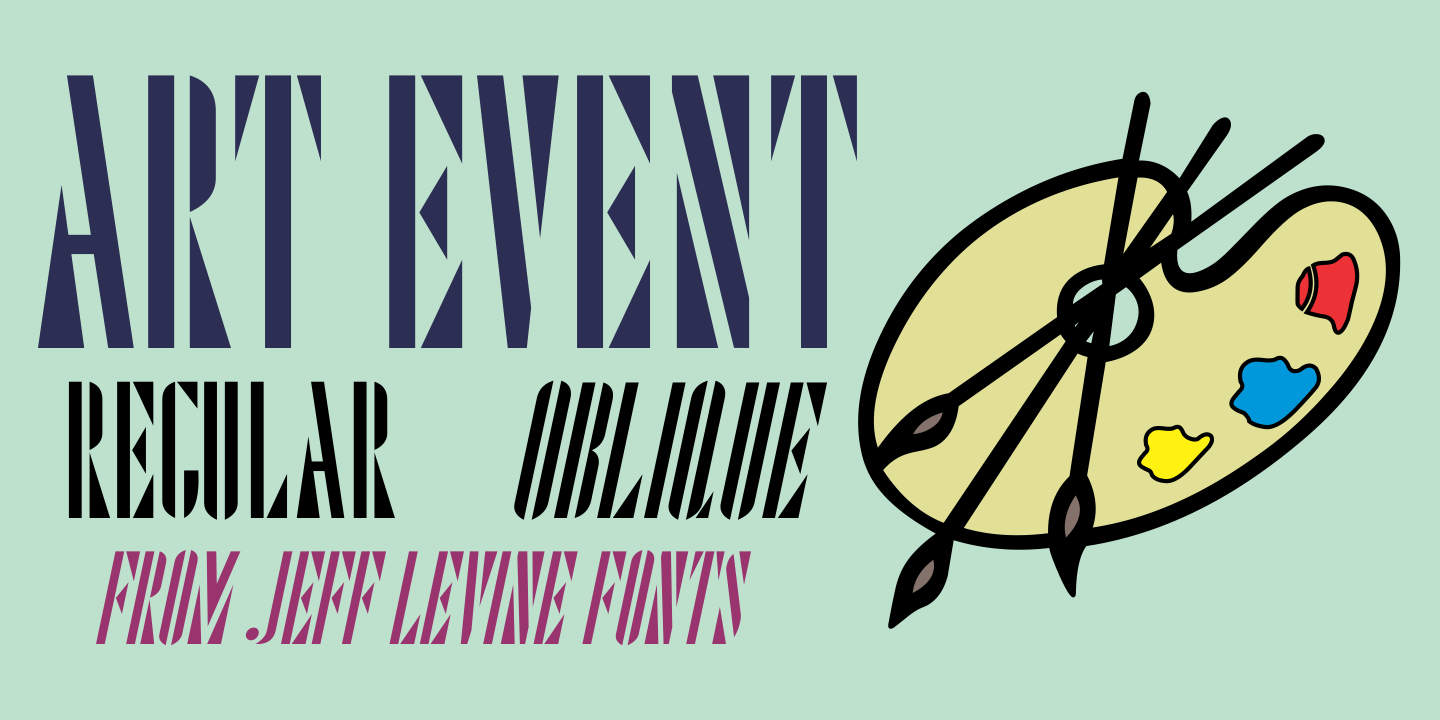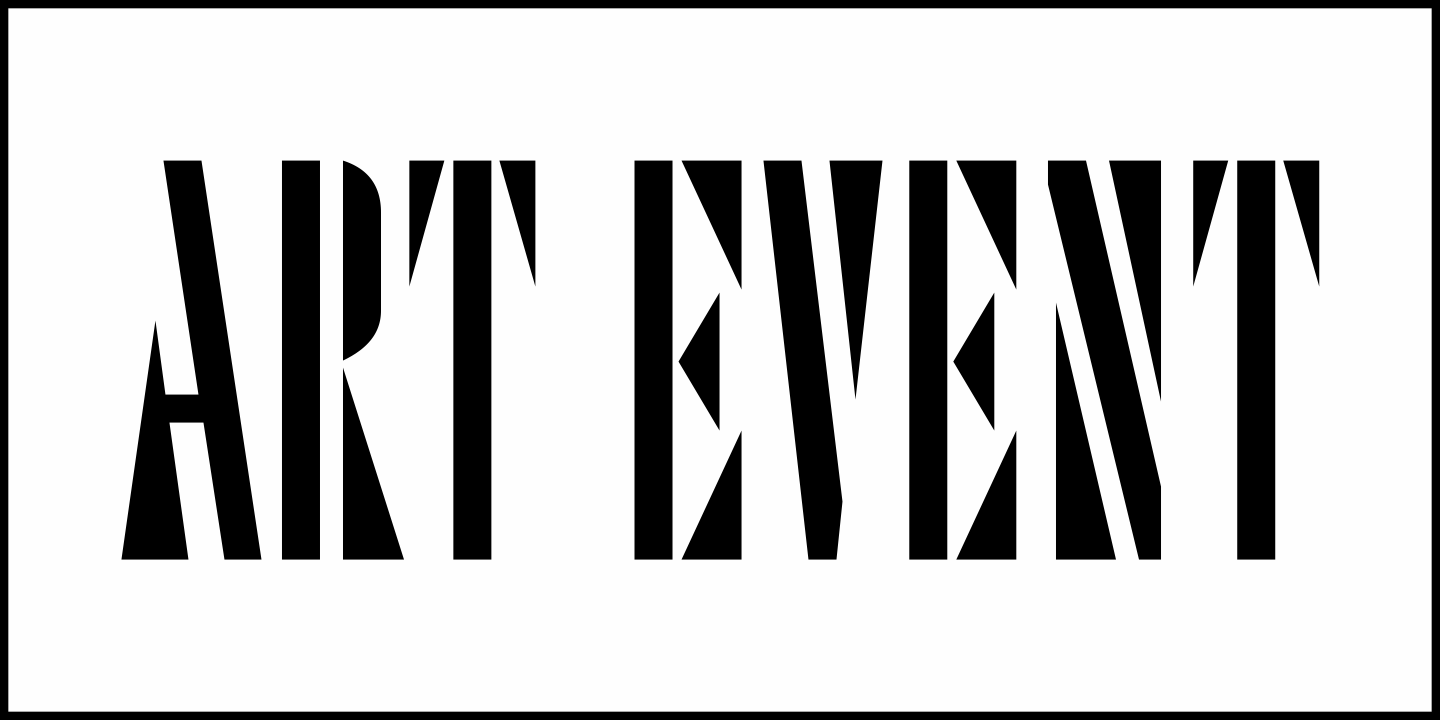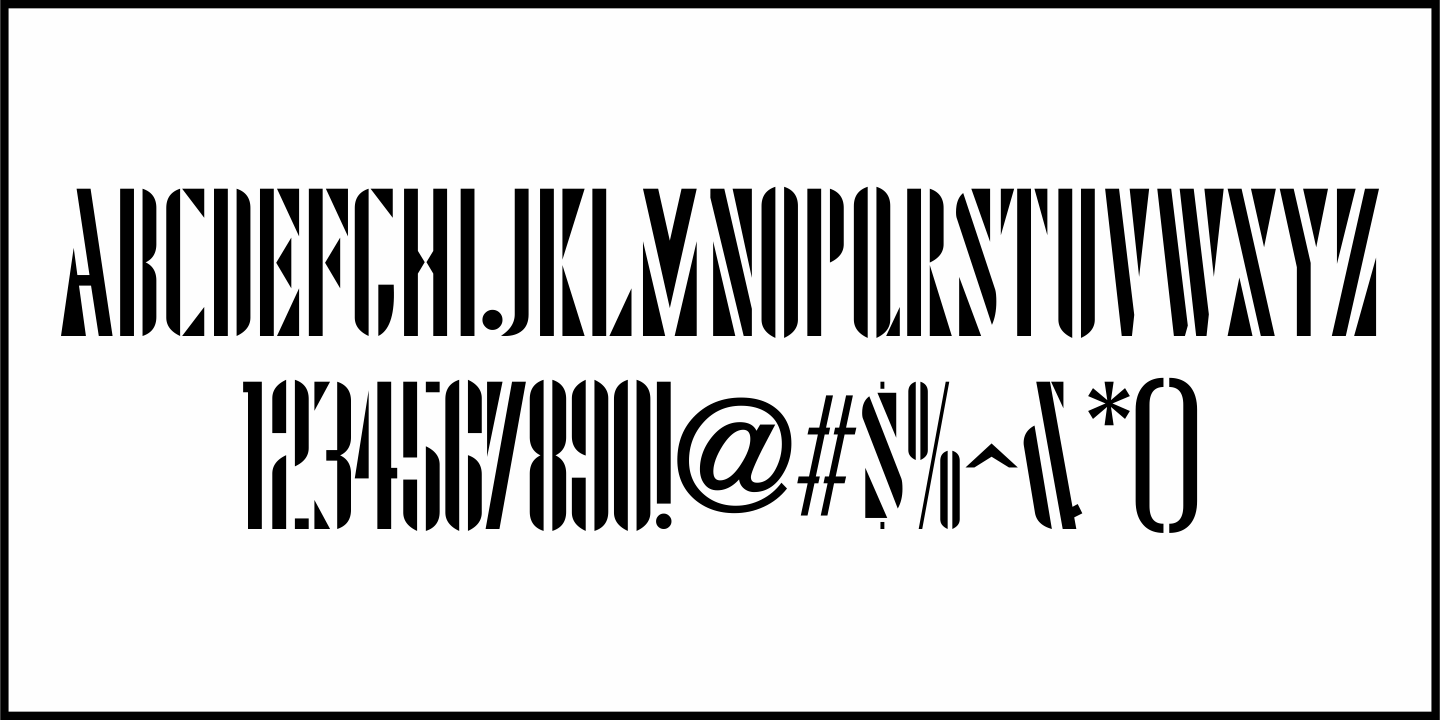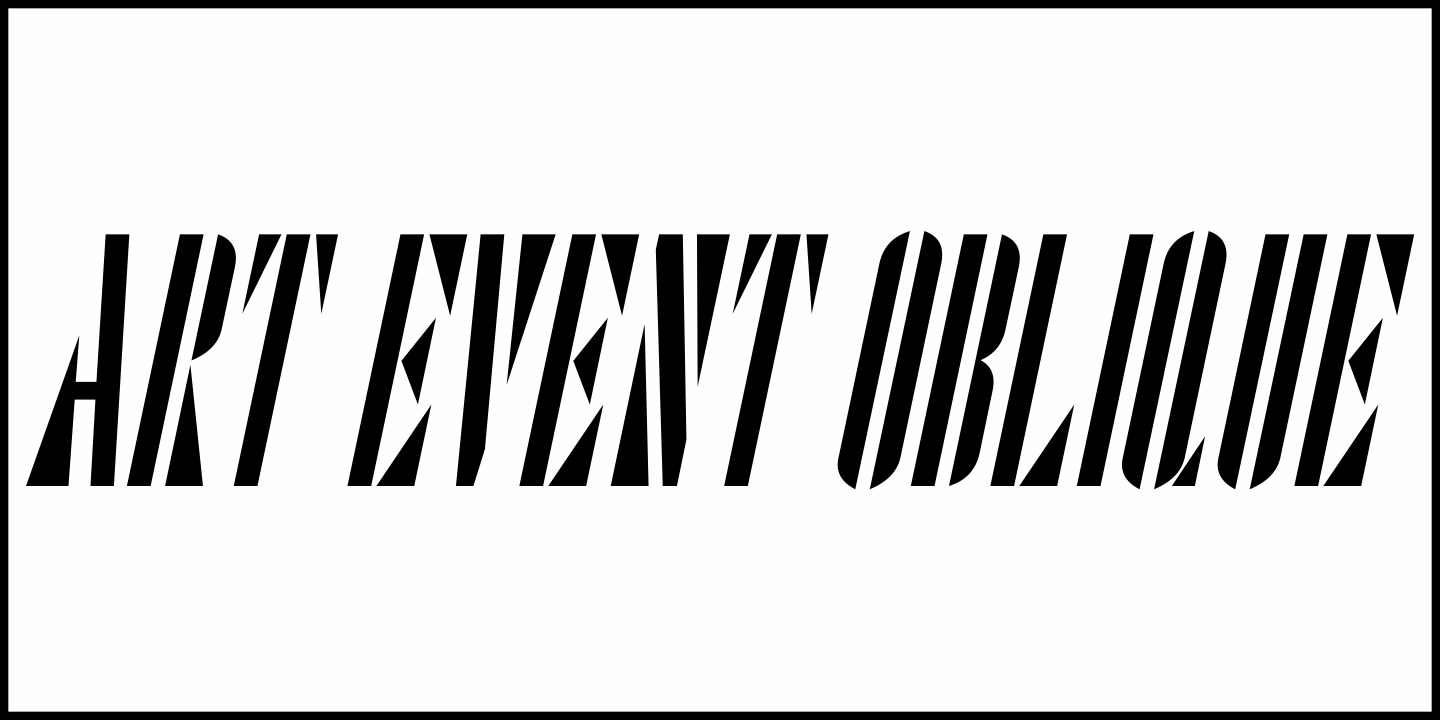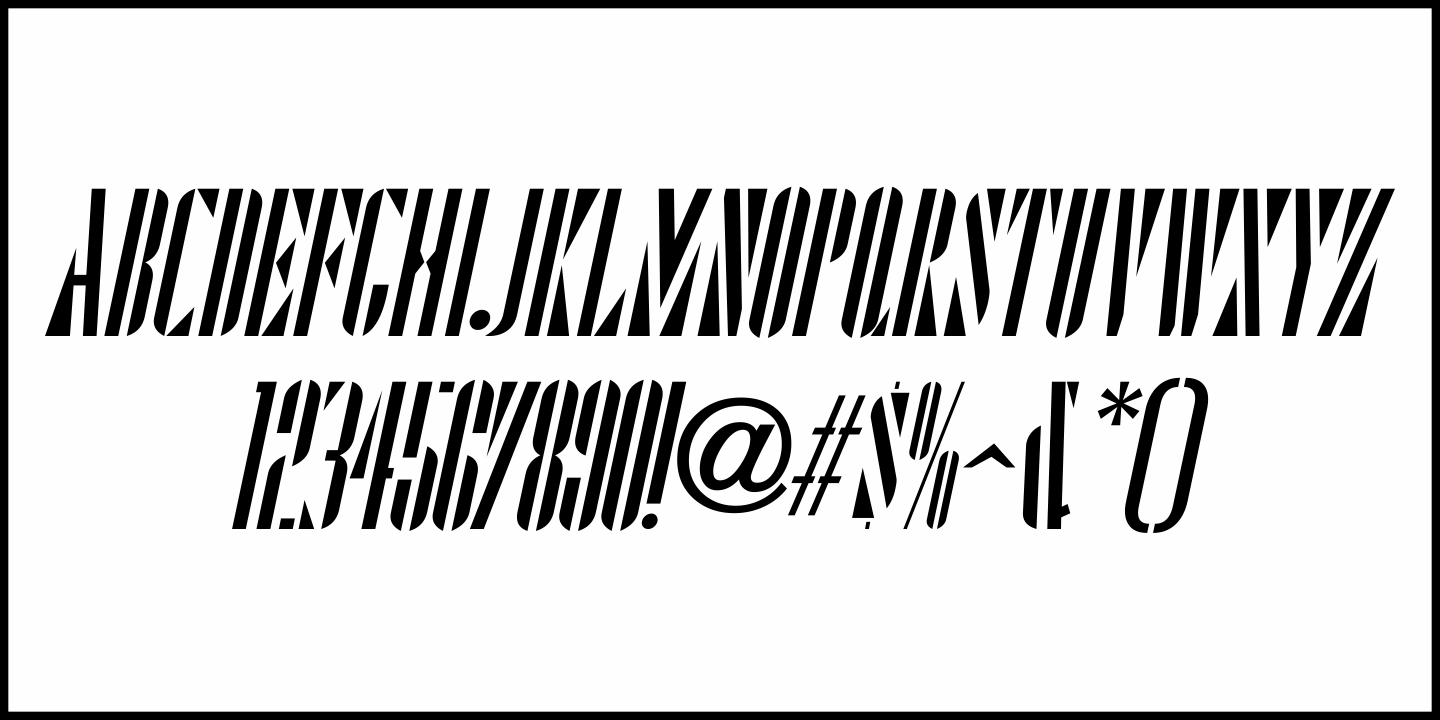
Art Event
A 1930s WPA (Works Progress Administration) poster advertising an exhibit of New Jersey area posters had its main lettering rendered in a very condensed hand lettered interpretation of the ever-popular Futura Black Art Deco style.
This has now been re-drawn and digitized as Art Event JNL, in both regular and oblique versions.
Art Event JNL Regular by Jeff Levine Fonts